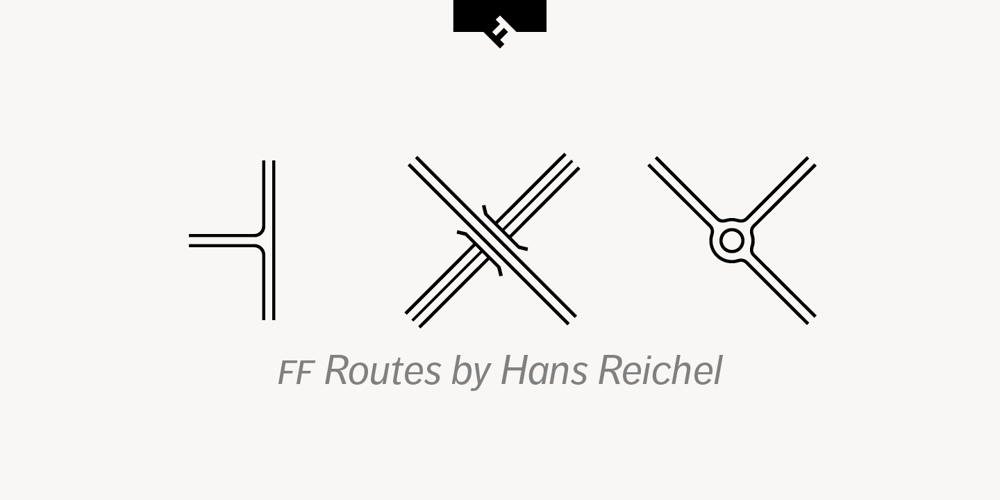
FF Routes Font Family was designed by Hans Reichel and published by FontFont. FF Routes contains 8 styles and family package options. German type designer Hans Reichel created this symbols FontFont in 2001.It is ideal for creating road maps. The family has 8 weights, and is ideally suited for editorial and publishing and wayfinding and signage.